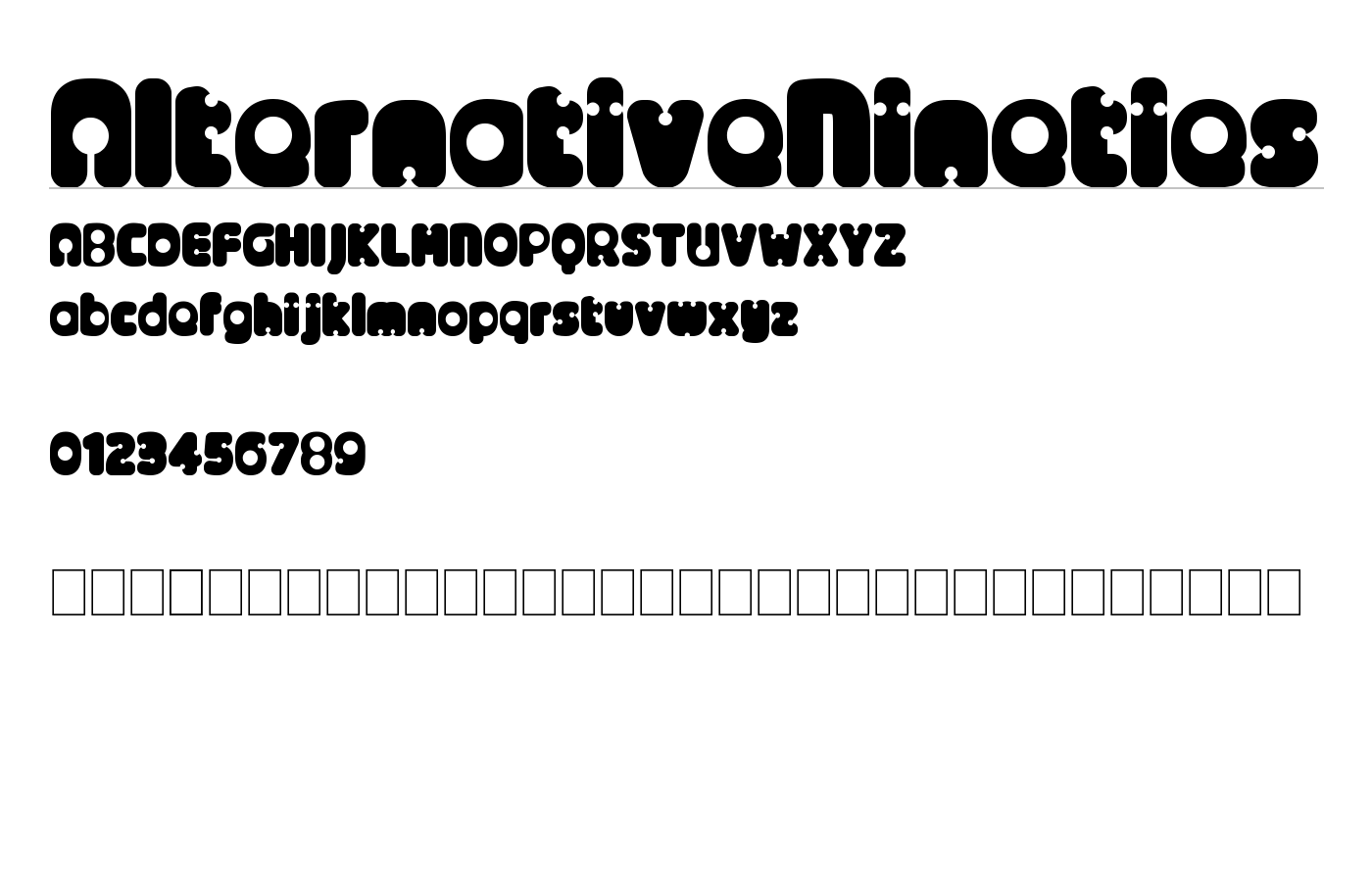
AlternativeNineties is a playful and bold sans serif typeface characterized by its thick, rounded strokes and quirky, cut-out details that evoke a retro 1990s vibe. This font’s heavy weight and bubbly letterforms make it perfect for eye-catching headlines, logos, and creative projects that seek a fun, nostalgic, and unconventional look. Its unique style adds a distinct personality that works especially well for youthful brands and vibrant visual designs.
AlternativeNineties Font
About AlternativeNineties Font